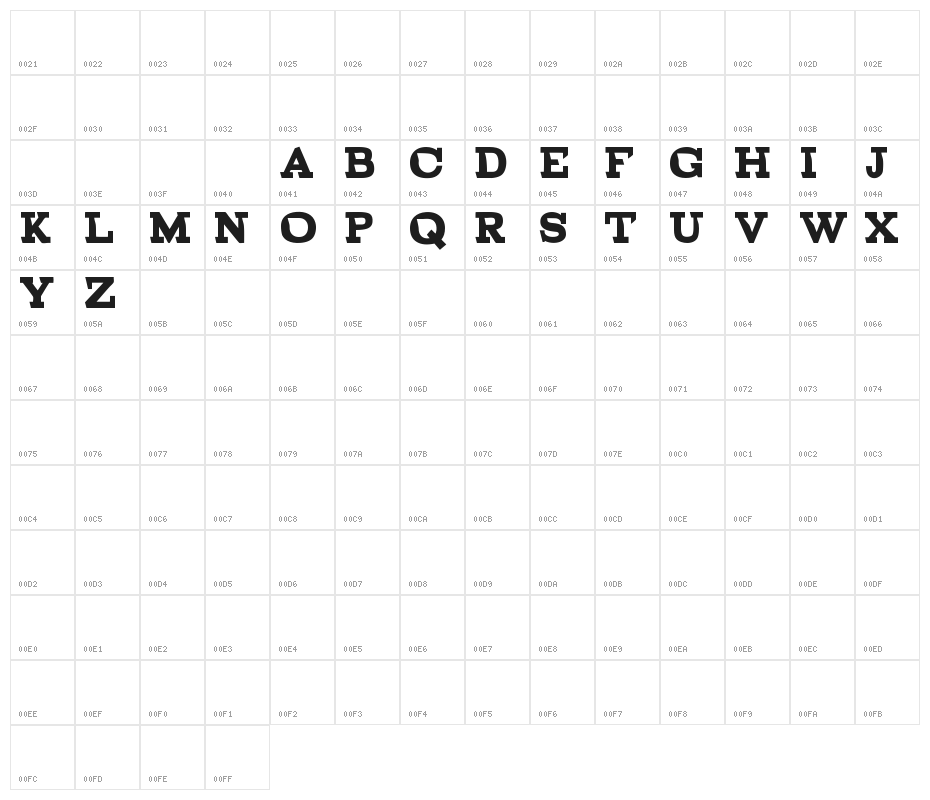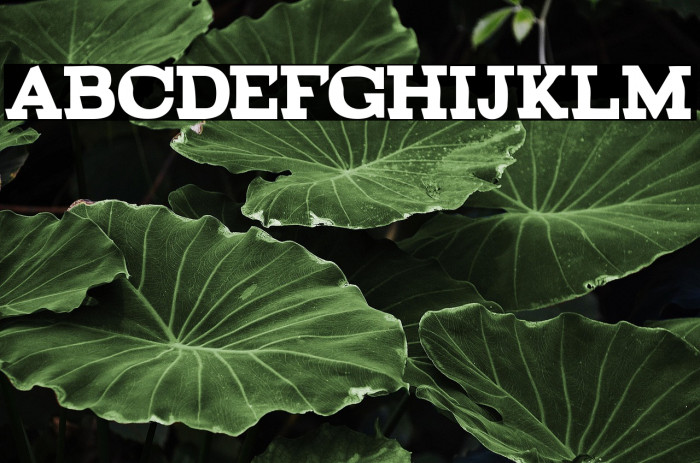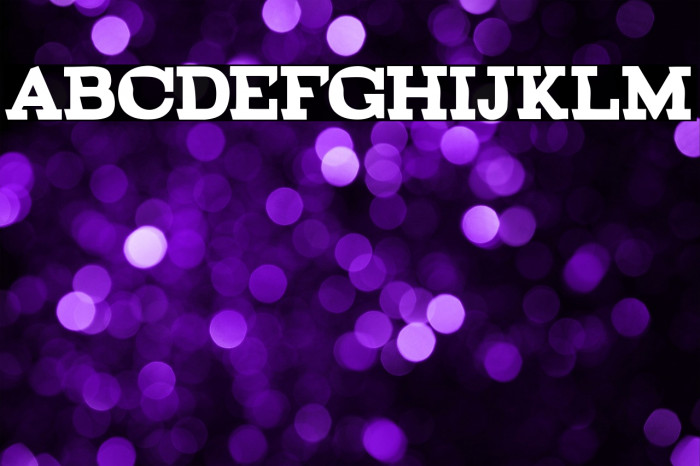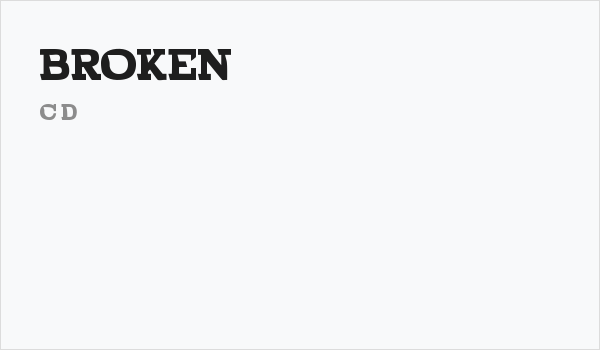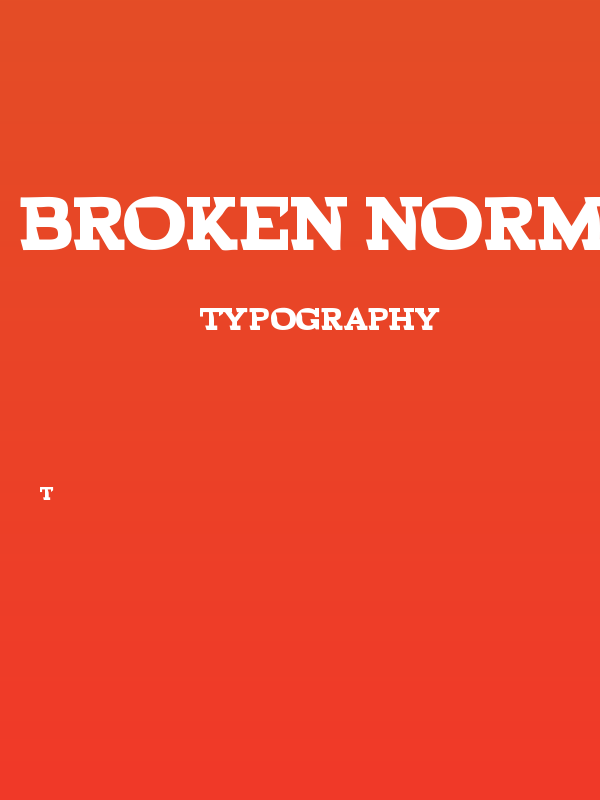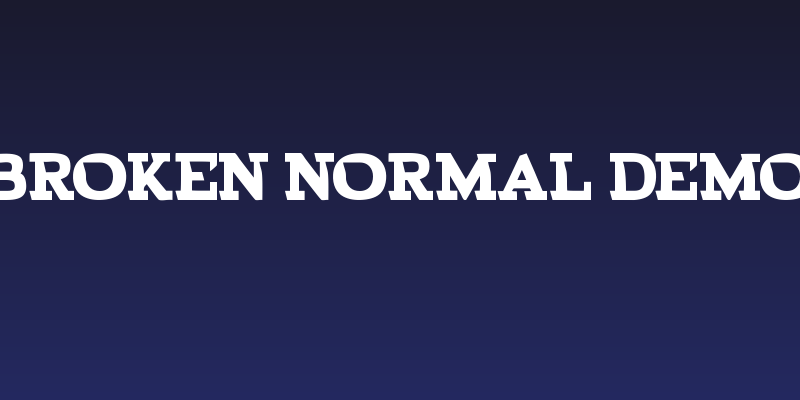
BROKEN normal demo Font
BROKEN normal demo Description
This font features bold, uppercase letters with a strong presence and a classic serif style. The strokes are thick and uniform, giving it a robust and authoritative look. The serifs are prominent, adding a touch of elegance and tradition. The overall appearance is clean and structured, making it suitable for formal and impactful designs. The spacing between characters is tight, which enhances its boldness and makes it ideal for headlines or titles where attention is required.
| Proposed Projects | Ideal for use in headlines, posters, branding materials, and any project requiring a strong, authoritative typeface. |